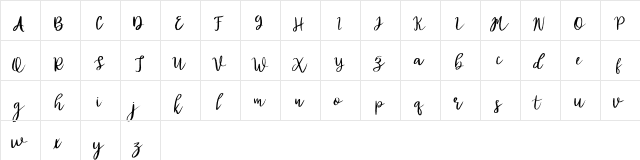
Diana Rough FREE Regular
Design Context for Diana Rough FREE Typeface
Diana Rough FREE trades polish for personality, using distressed and eroded forms to bring grit and attitude to creative work.
Suited to punk-influenced zines, underground music branding, streetwear, and raw, anti-corporate design.
Pro Tip: Pair Diana Rough FREE with intentionally raw or lo-fi design elements. Fighting against it with overly polished surroundings will undermine its personality.